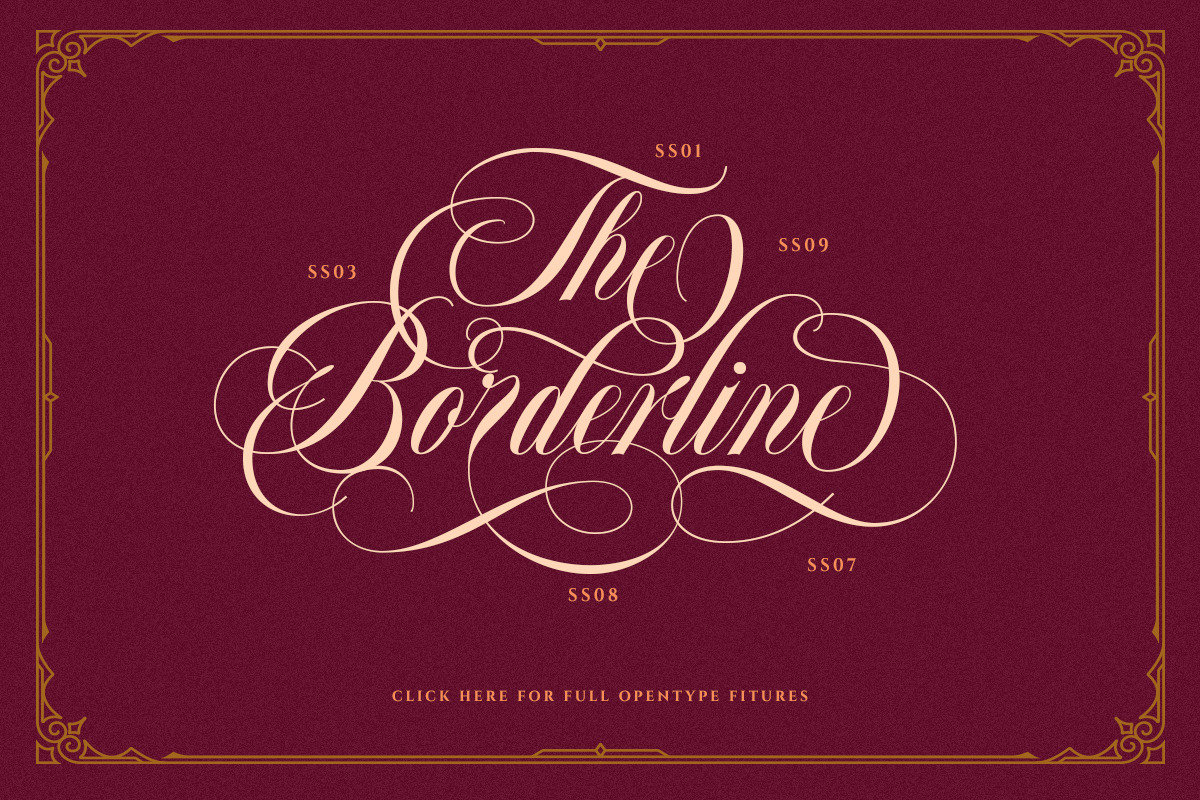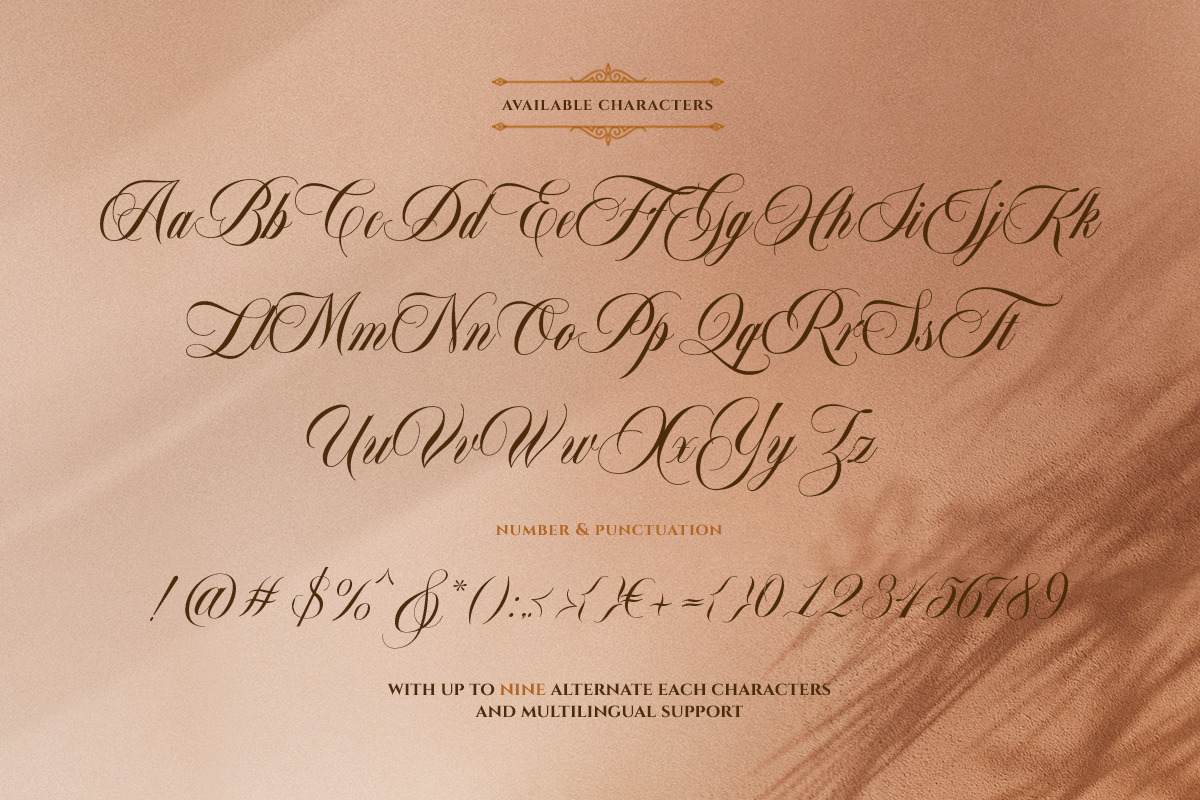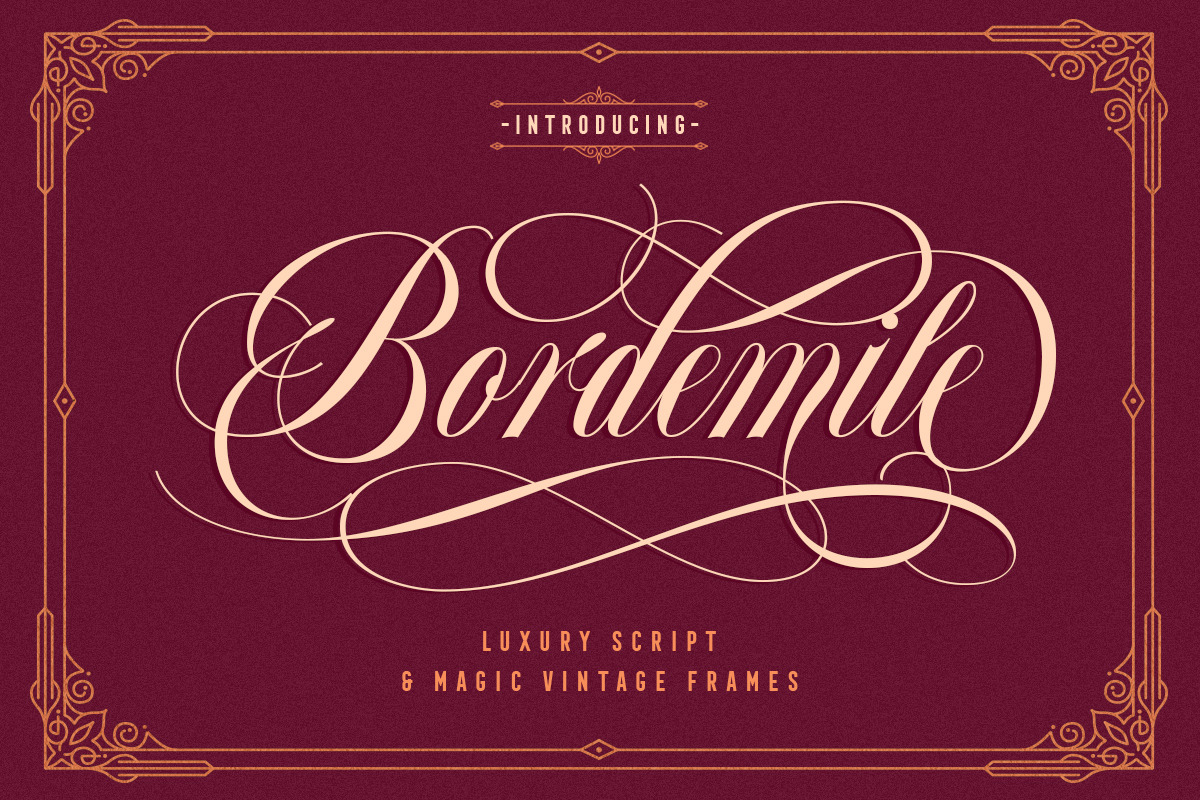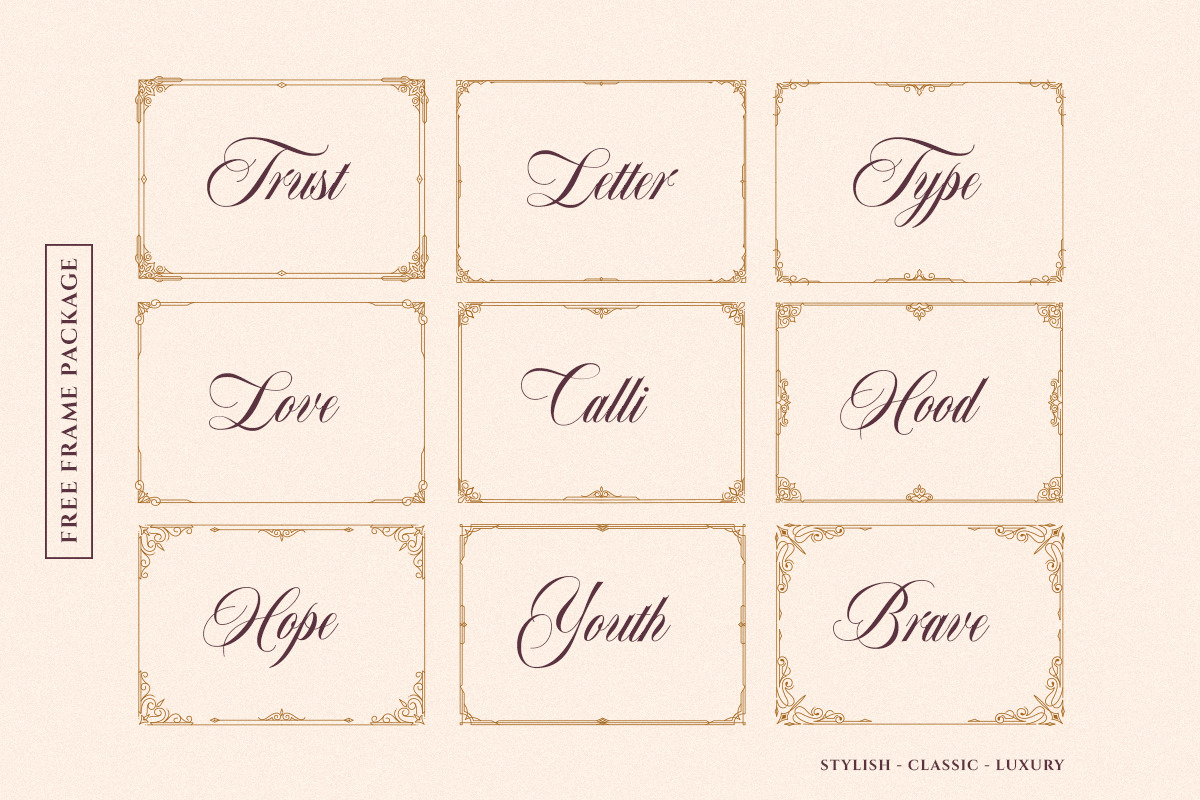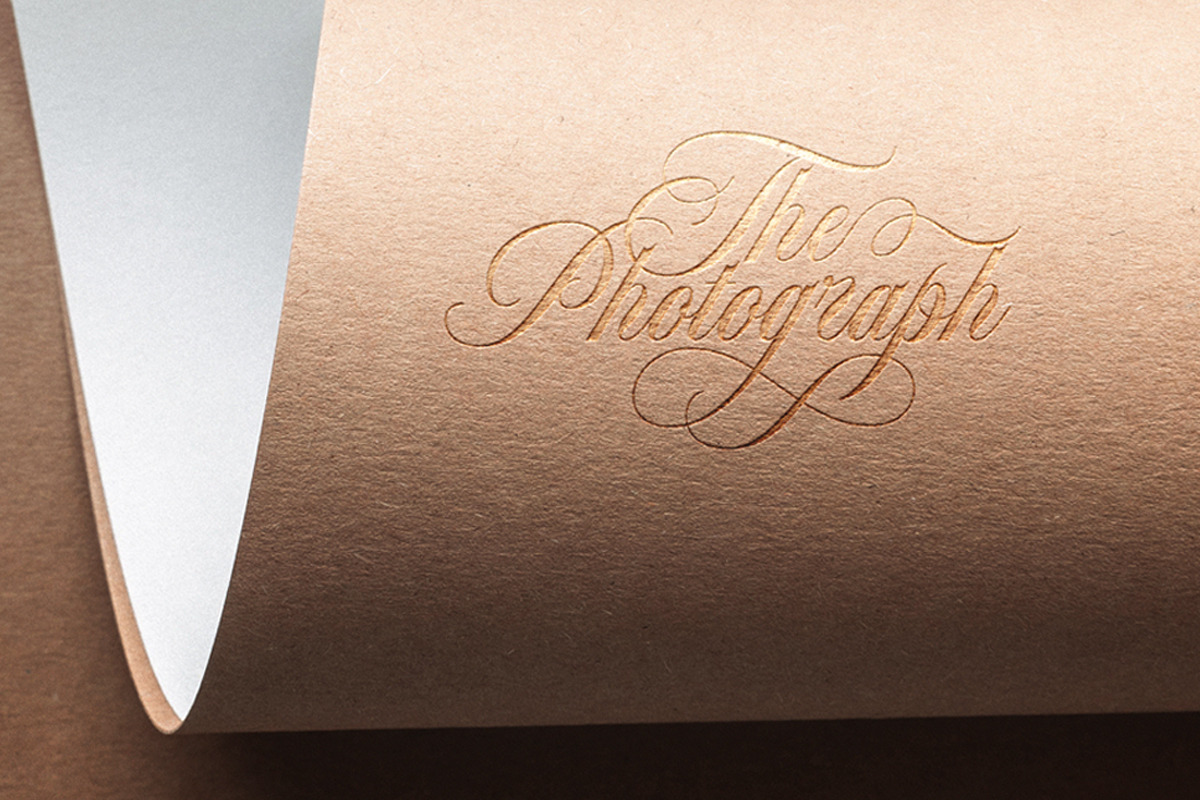
Bordemile - Luxury Script
Introducing, Bordemile. A luxury script with unique swashes! They works perfect for you who needs a typeface for headline, logotype, apparel, invitation, branding, packaging, advertising etc.
- alternates
- swashes